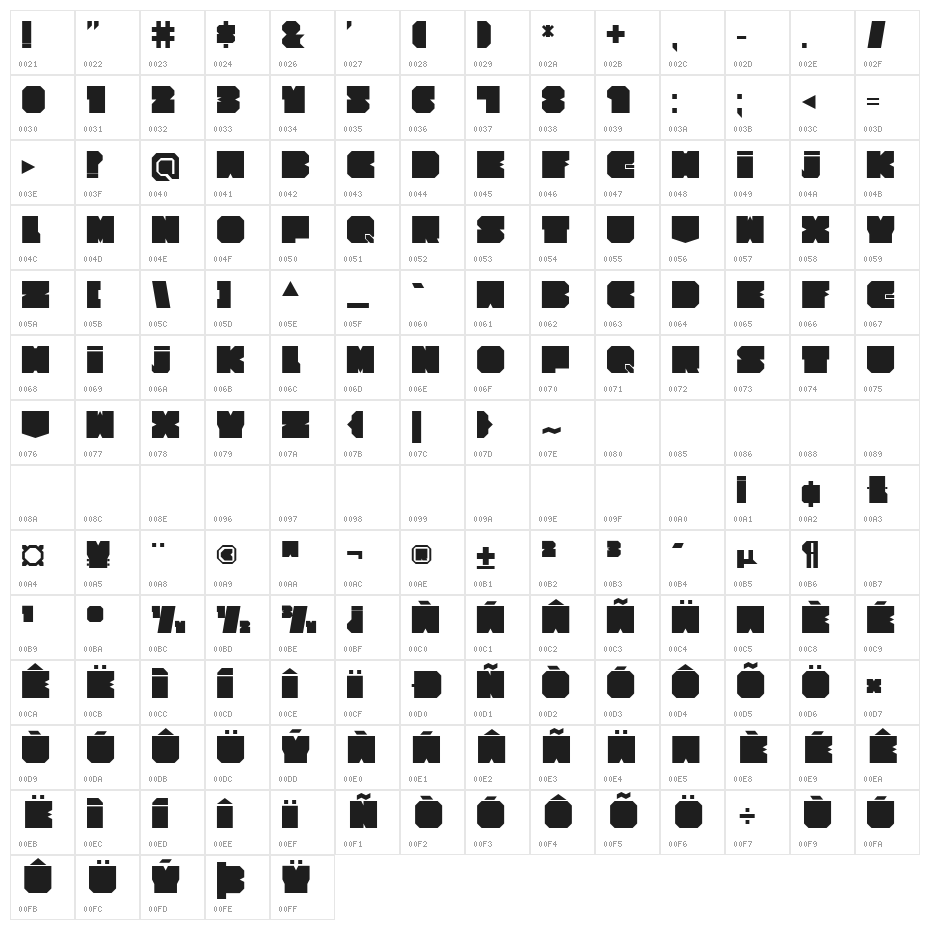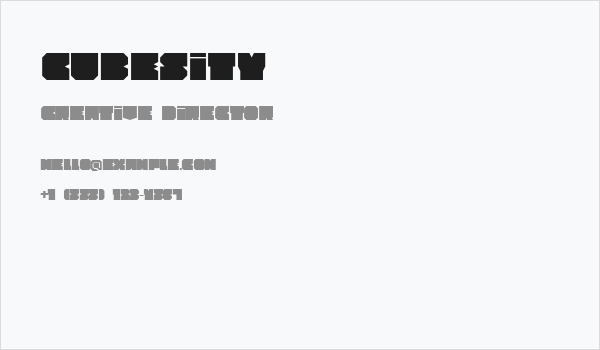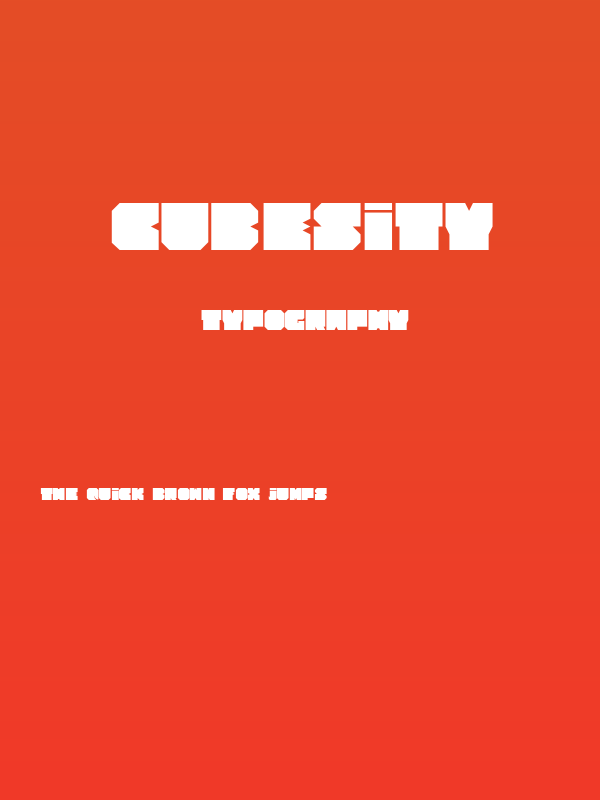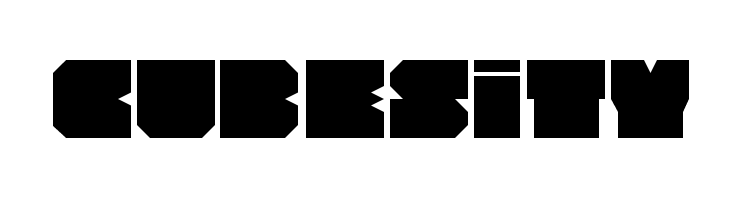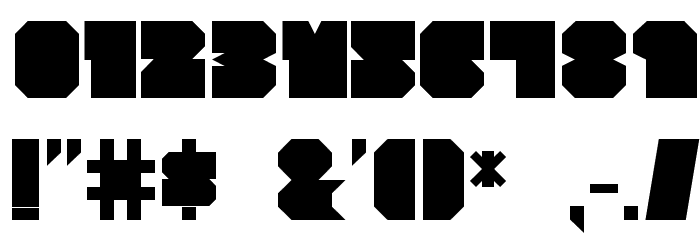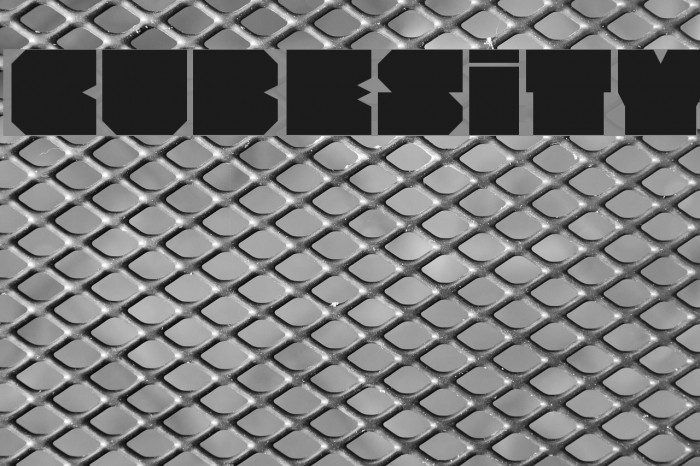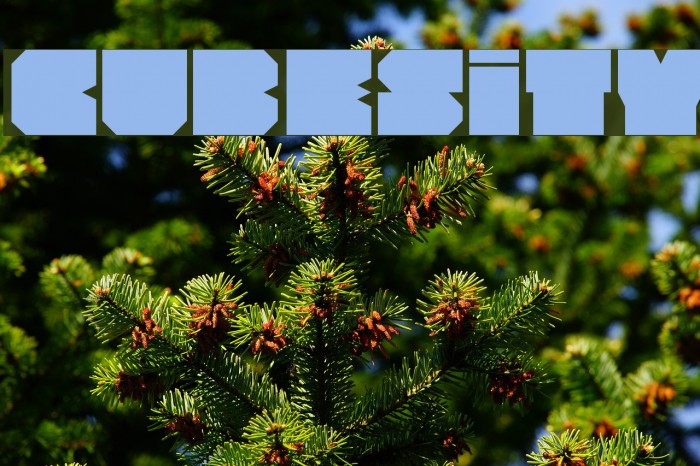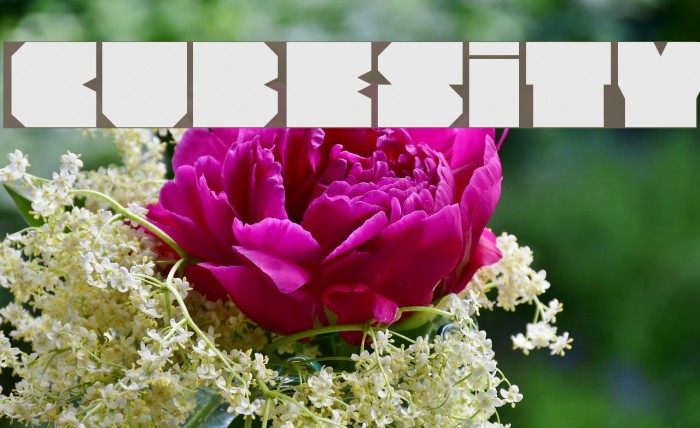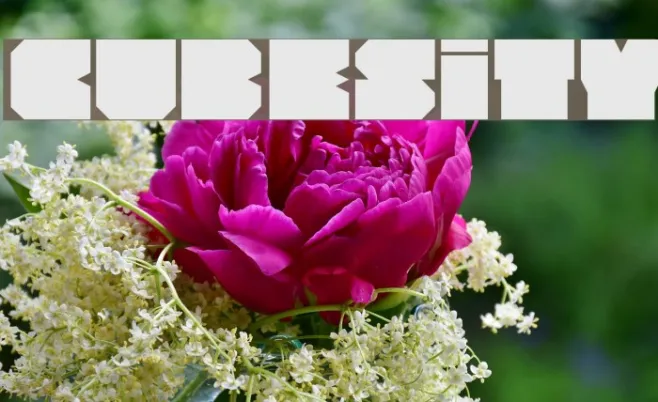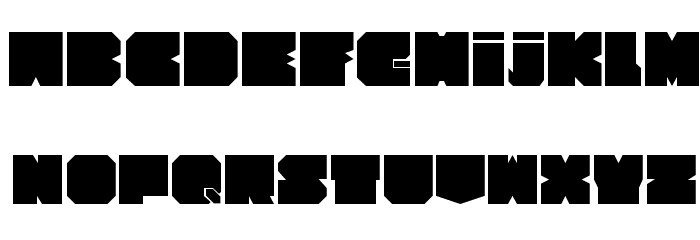
Cubesity Font
Cubesity Description
This font features a bold, geometric design with a distinct blocky appearance. Each character is constructed with sharp angles and straight lines, creating a sense of solidity and strength. The uppercase and lowercase letters maintain a consistent style, with minimal differentiation between them, emphasizing uniformity. Numbers and special characters follow the same geometric pattern, ensuring a cohesive look across all elements. The font's unique style makes it stand out, suitable for projects that require a modern and impactful visual presence.
| Proposed Projects | Ideal for branding, posters, headlines, and any design requiring a strong, modern aesthetic. |